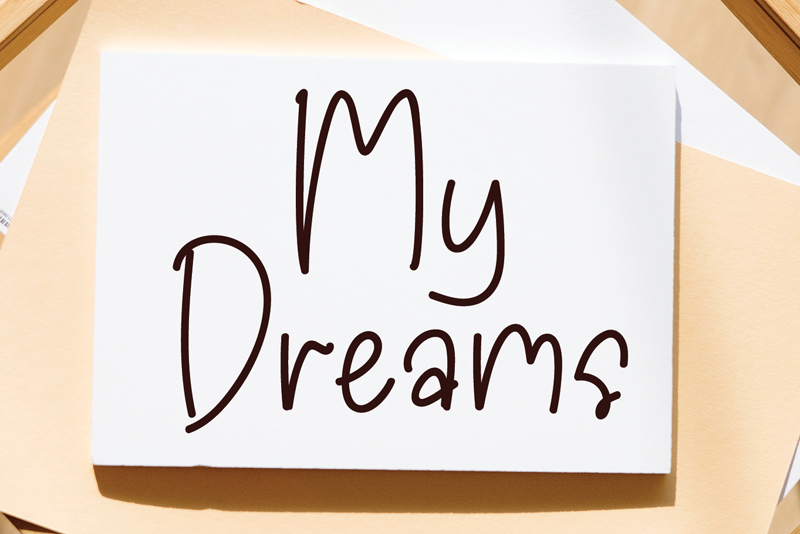
Font name: | My Dreams |
My Dreams is a thin-lettered handwritten font masterfully crafted to become a true favorite. Contemporary and fresh, it is perfect for any design you wish to create. Add it to your creative projects and make the outstanding! Attention : My Dreams handwriting Font is prohibited to use this font for commercial purposes or for profit without the permission of the author/admin, without being known to use this font without permission, will be subject to sanctions 5x the specified price. This font is used only for demos (Demo license) If you want to use this font for commercial use please contact email: luluksurotul123@gmail.com or click the link below: https://www.creativefabrica.com/product/my-dreams-2/ref/698281/ If you want to see more other fonts, please click: https://www.creativefabrica.com/designer/behind-the-ink/ref/698281/ Any donations are very appreciated. thanks. |